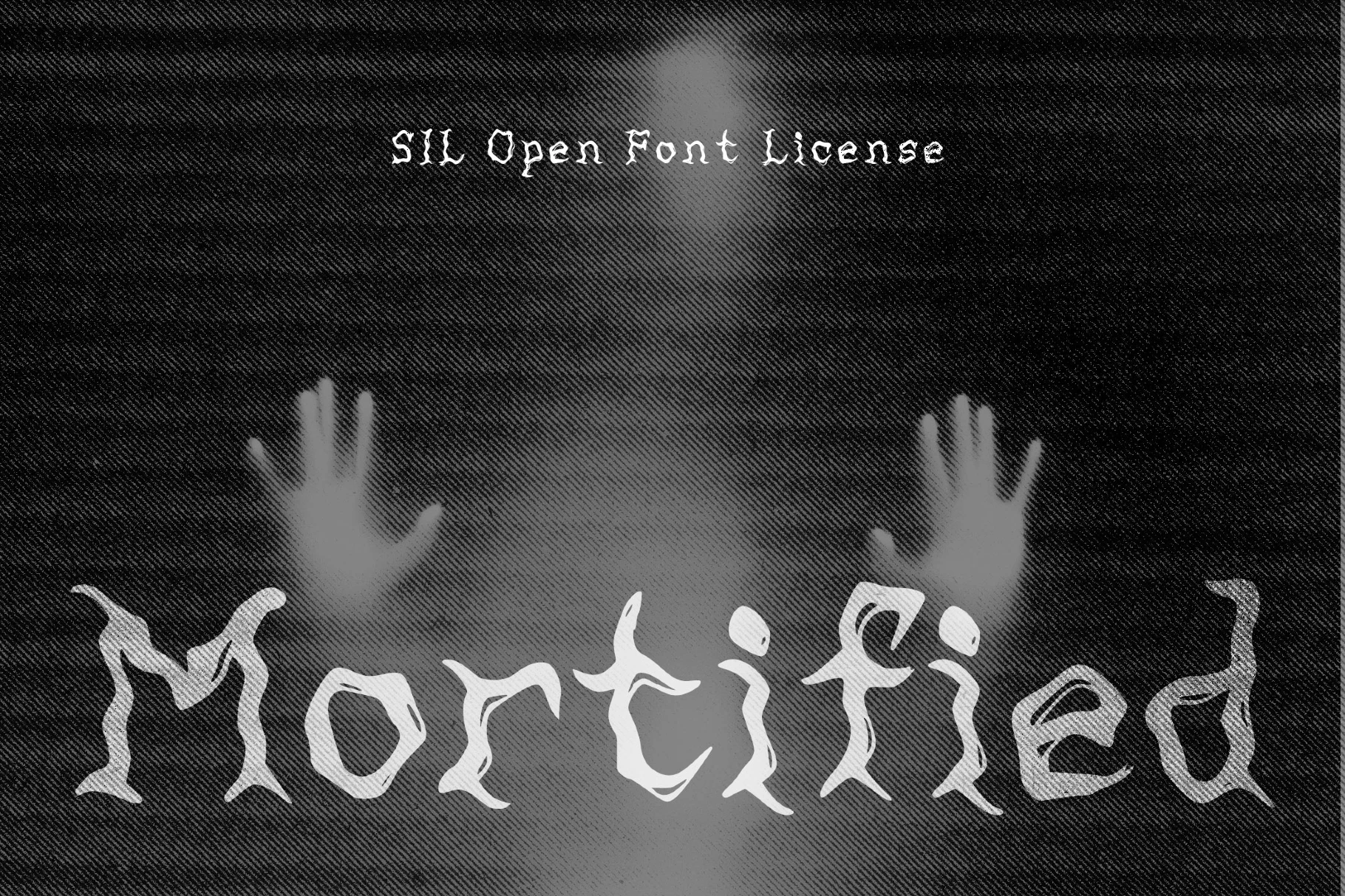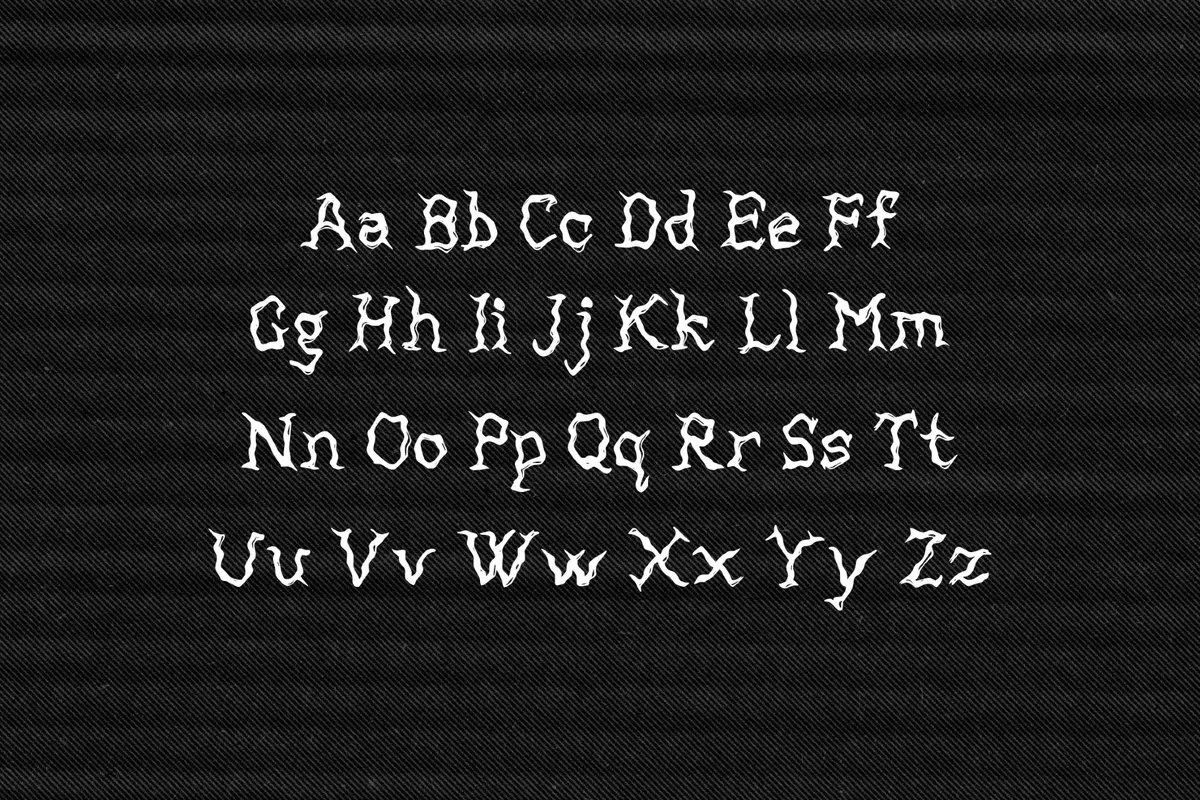
Mortified - Creepy Ghost Font
Mortified
Mortified is a creepy font that feels tense and uneven, with broken edges and restless angles. Instead of relying on visual noise alone, it builds character through structure: the serif-like details twist and stretch, adding a gothic undertone to the chaos.
It fits heavy, uneasy compositions: horror posters, movie titles, album covers, game interfaces, underground zines, and experimental editorial layouts.